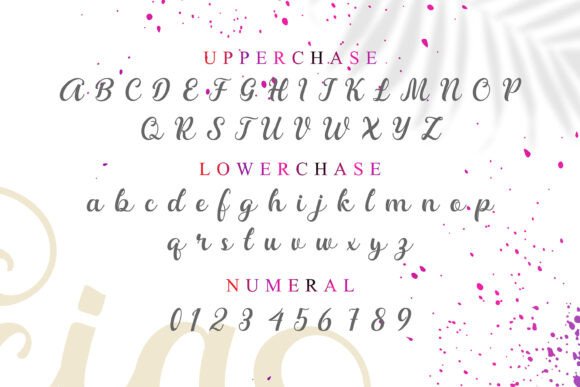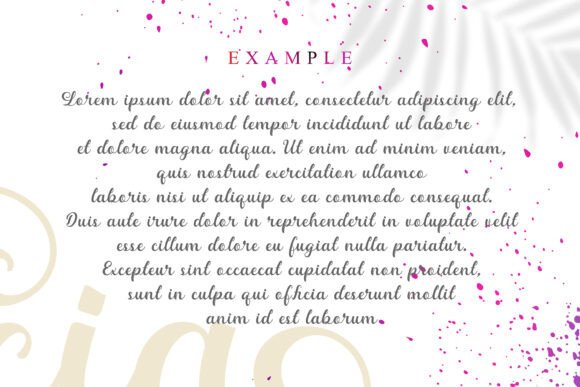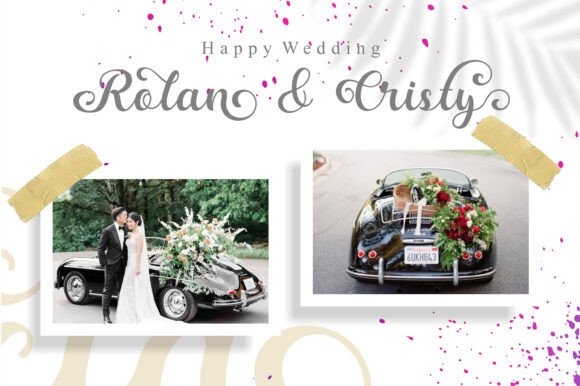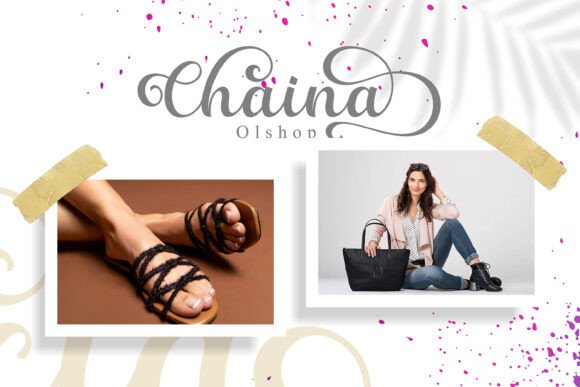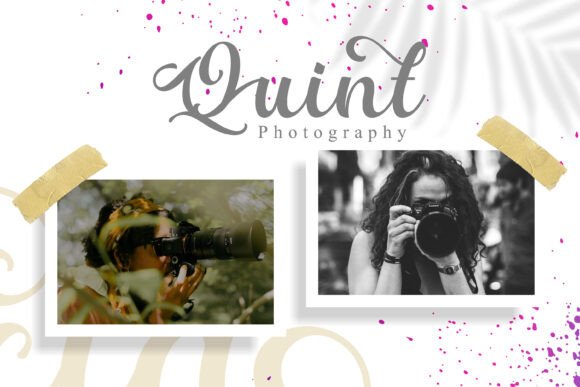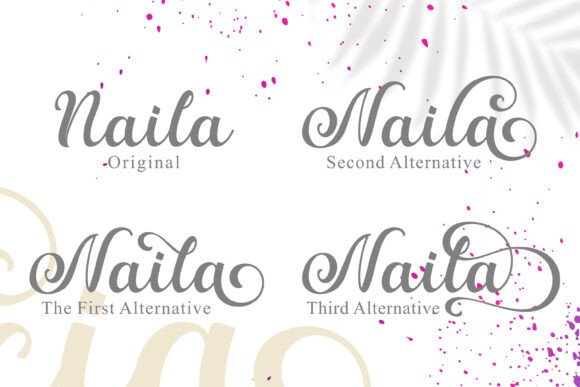
Introducing Alicia Font: Elevate Your Designs with Elegance and Sophistication
In the world of typography, a font can make or break a design. For designers and crafters seeking to add a touch of elegance and modernity to their projects, Alicia Font is an exceptional choice. This fresh and modern calligraphy font is designed to bring a sense of sophistication and style to a wide range of applications, from branding materials and business cards to quotes, posters, logos, and more.
What Makes Alicia Font Stand Out?
Alicia Font is characterized by its decorative characters and flowing baseline, which together create a sense of movement and fluidity. This elegant calligraphy font is perfect for those looking to add a personal touch to their designs without compromising on readability. The inclusion of alternate characters through several OpenType features such as Swash, Stylistic Sets, Stylistic Alternates, and Contextual Alternates, allows for a high degree of customization and creativity.
Unlocking Creative Potential with OpenType Features
- Swash: Adds a decorative flair to your text, perfect for emphasizing certain words or phrases.
- Stylistic Sets: Offers a variety of stylistic variations that can be used to create a cohesive look throughout your design.
- Stylistic Alternates: Provides alternative characters that can be used to add visual interest and variation to your text.
- Contextual Alternates: Automatically substitutes characters to create a more natural and fluid appearance.
Whether you’re working on a branding project, designing business cards, or creating eye-catching posters, Alicia Font is an excellent choice. Its elegant and modern aesthetic makes it versatile enough to be used across a wide range of design applications, including:
- Branding Materials: Create a lasting impression with elegant and sophisticated branding that reflects your brand’s personality.
- Business Cards: Stand out from the crowd with beautifully designed business cards that showcase your professionalism.
- Quotes and Posters: Add a touch of elegance to your inspirational quotes and posters, making them perfect for sharing.
- Logos: Design unique and memorable logos that capture the essence of your brand.
Alicia Font is a versatile and elegant calligraphy font that offers designers and crafters a wide range of creative possibilities. With its decorative characters, flowing baseline, and extensive OpenType features, it’s perfect for adding a touch of sophistication and modernity to any design project. Whether you’re a professional designer or a DIY crafter, Alicia Font is an excellent addition to your typographic toolkit.